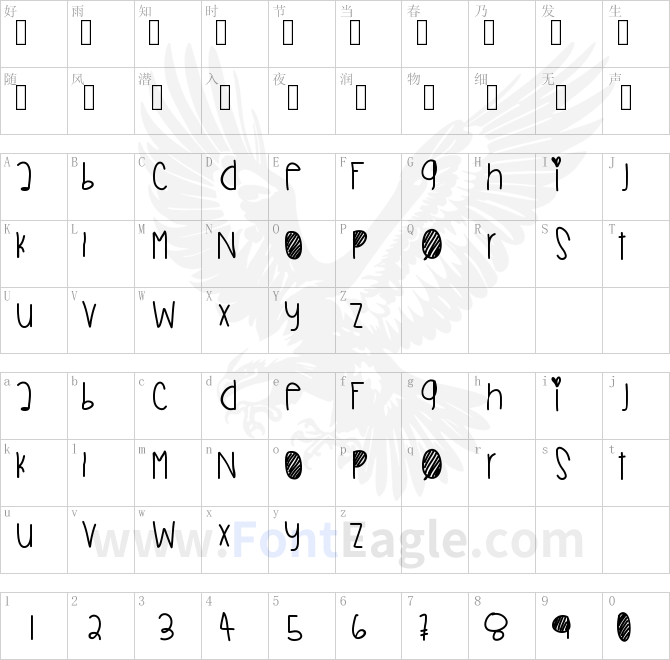
- Font name:SmittenOverU
SmittenOverU is a great font, widely used in graphic design, single-page menu design, poster design and other fields, and is deeply loved by designers.SmittenOverU download.